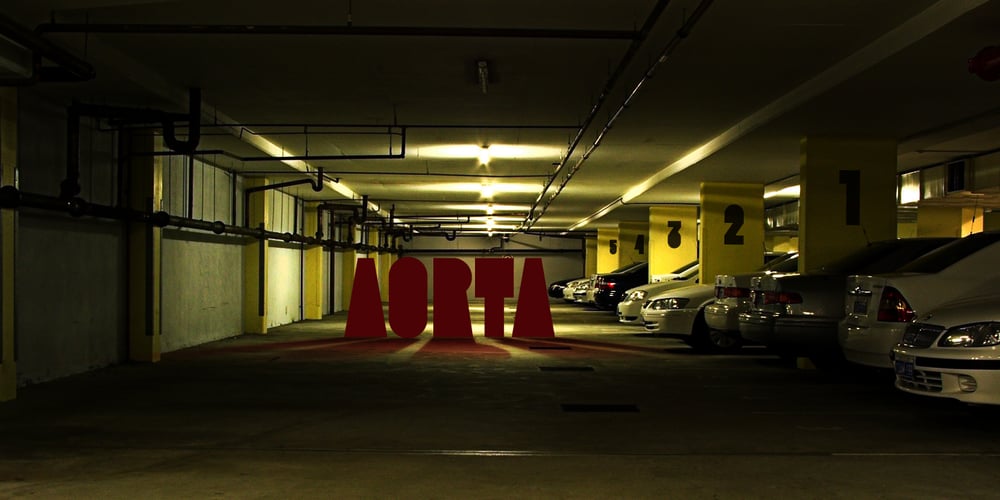
Aorta Font Family was designed by Roman Shchyukin and published by Gaslight. Aorta contains 1 styles and family package options. Aorta was designed for independent subcultural zine. It have stencil in place of lower-case and digit stencil in place of old style digit. Aorta good for headlines, posters, editorial design… Aorta have condensed proportion and good in solid matter.